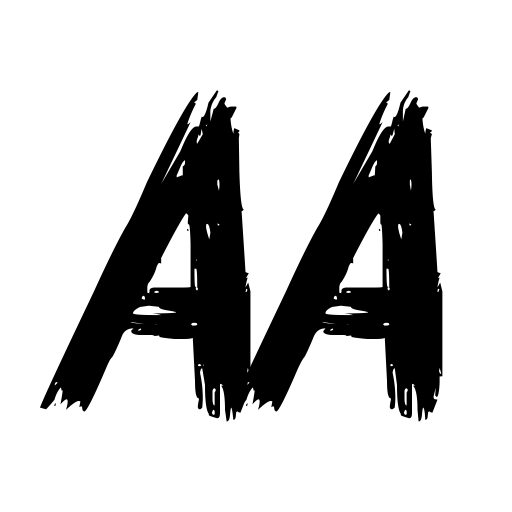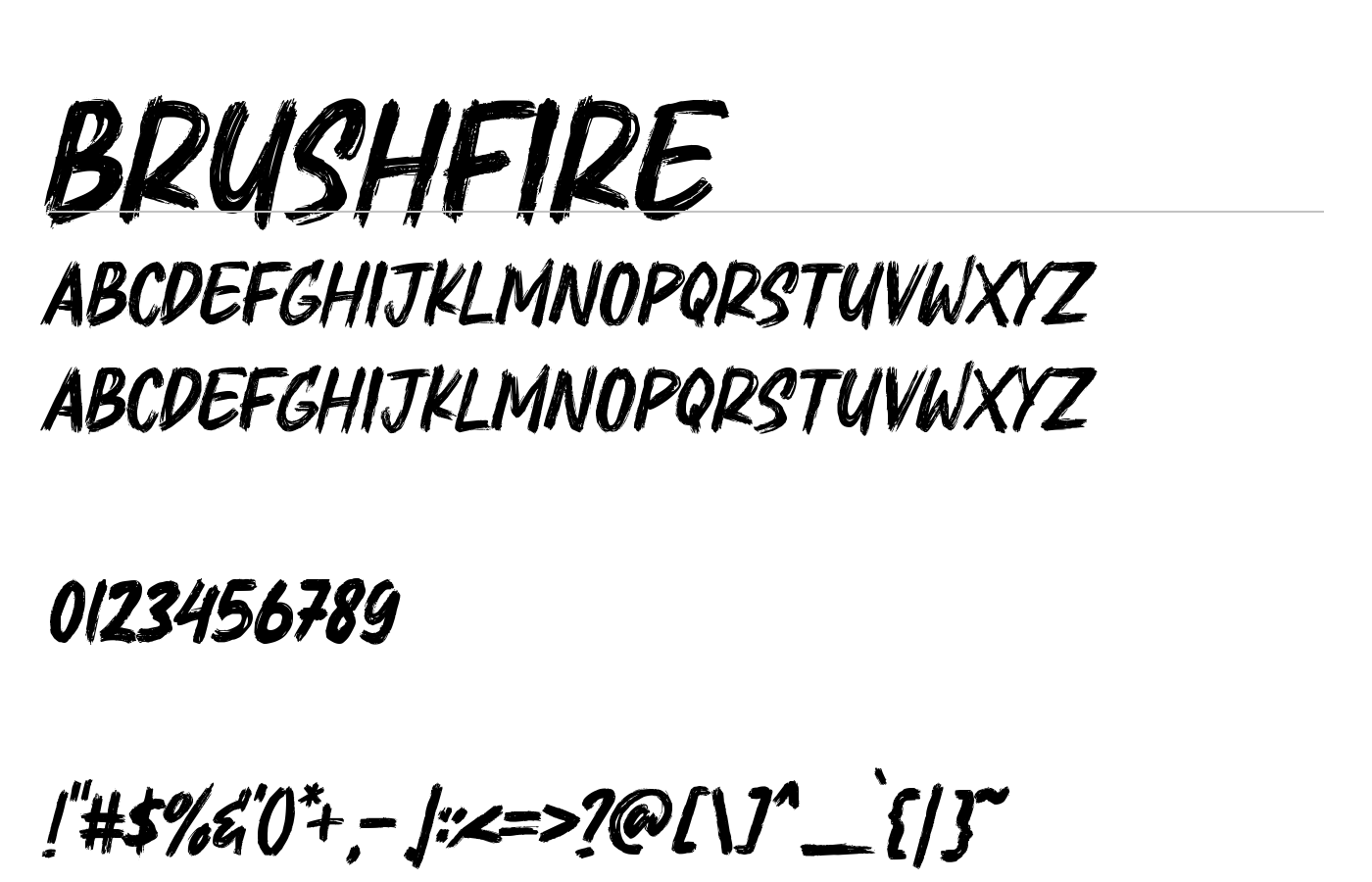
Brushfire is a bold, brush-script style font with a lively, hand-painted look that adds an energetic and informal vibe to any design. Its rough, textured strokes and slightly condensed letterforms create a dynamic feel, making it perfect for eye-catching headlines, posters, and creative branding where a casual, artistic touch is desired. This font works well for projects aiming to convey spontaneity, creativity, and personality.
Brushfire Font
About Brushfire Font
| Font family | Brushfire Font |
| Designer | Muhamad Yusron Billah |